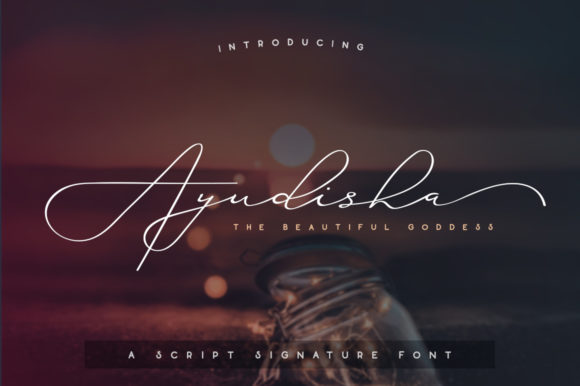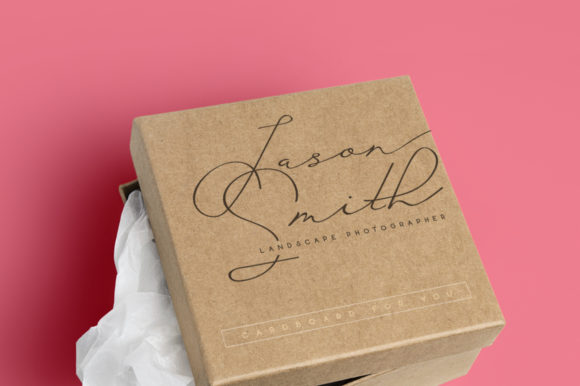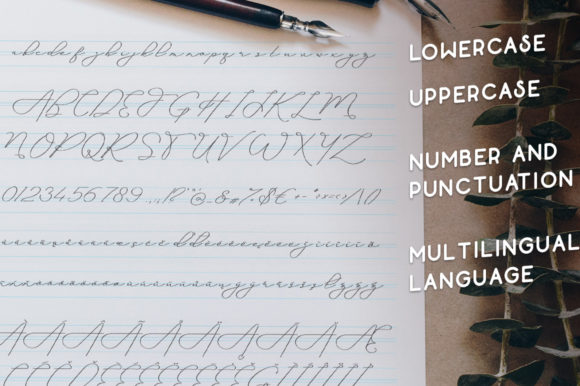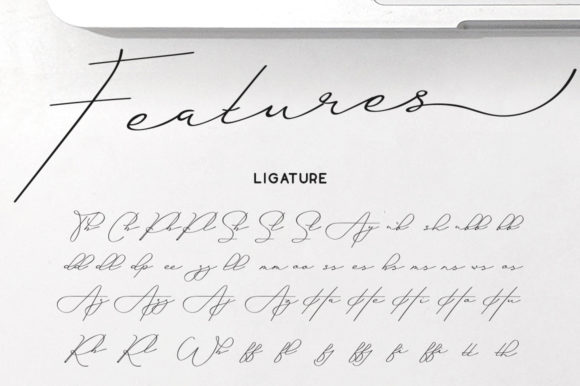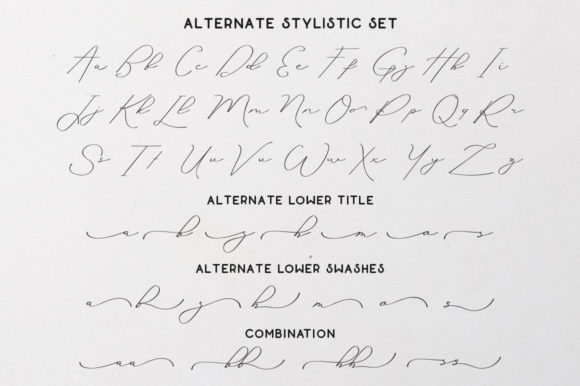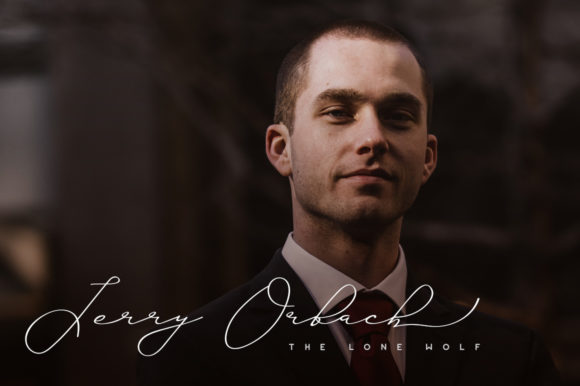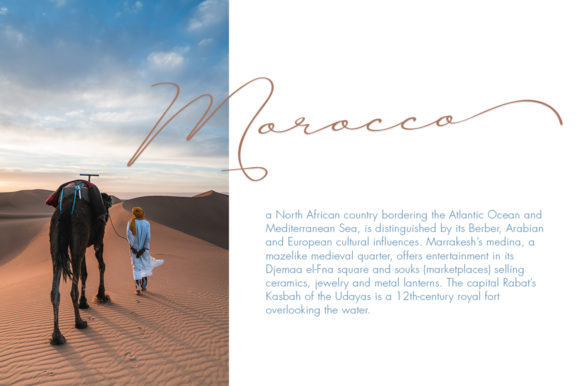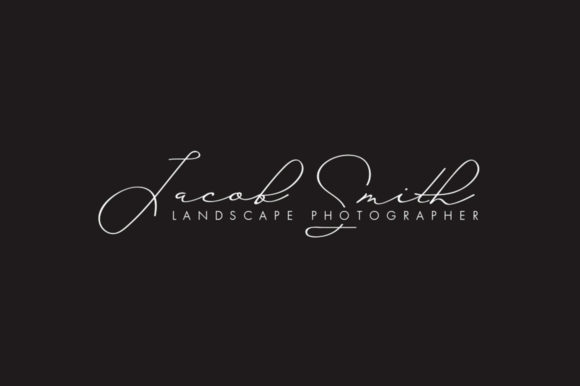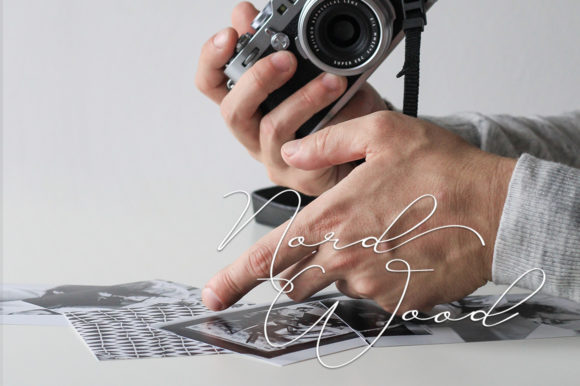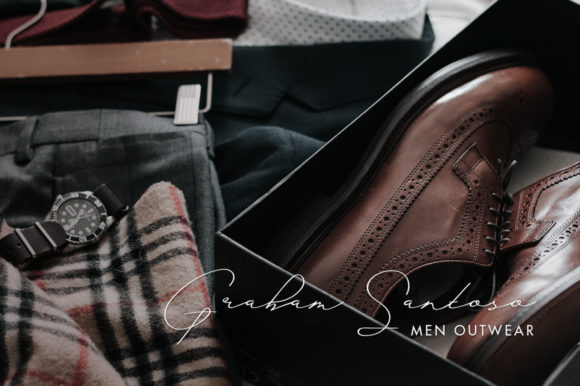
Ayudisha Font
About Ayudisha Font
Ayudisha is a fun and light handwritten font with a stunning vibe. It will add a spark of elegance to any design project!